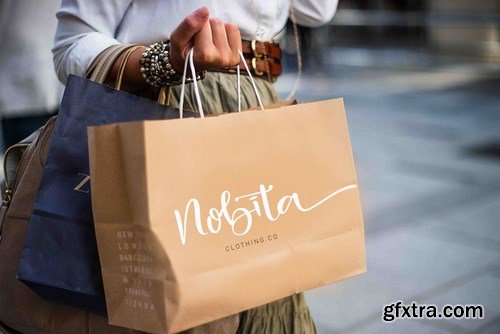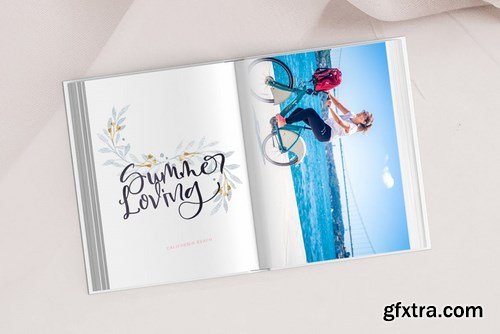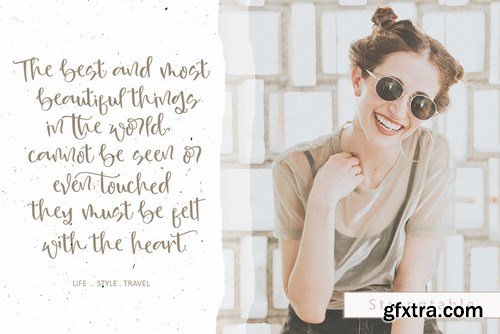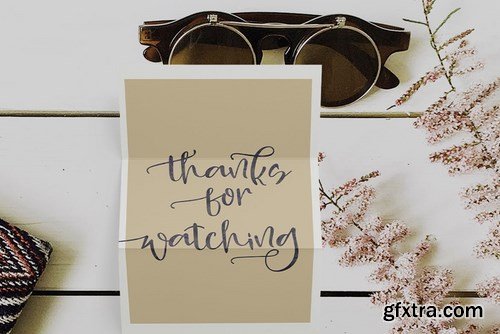
Strong Table Font
Strong table is a calligraphic manuscript modern, dynamic and pretty with swashes. Can be used for many purposes. such as title, signature, logo, wedding invitations, letterhead, signage, labels, newsletters, posters, badges, etc.